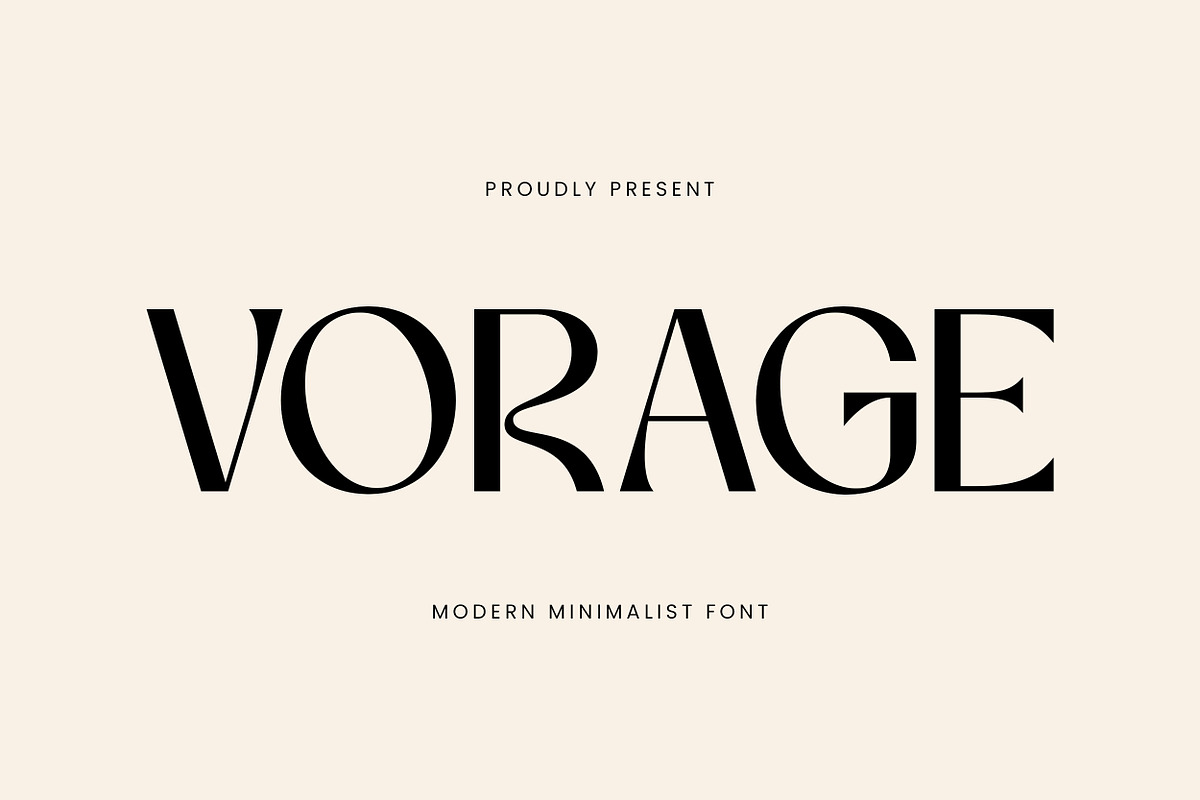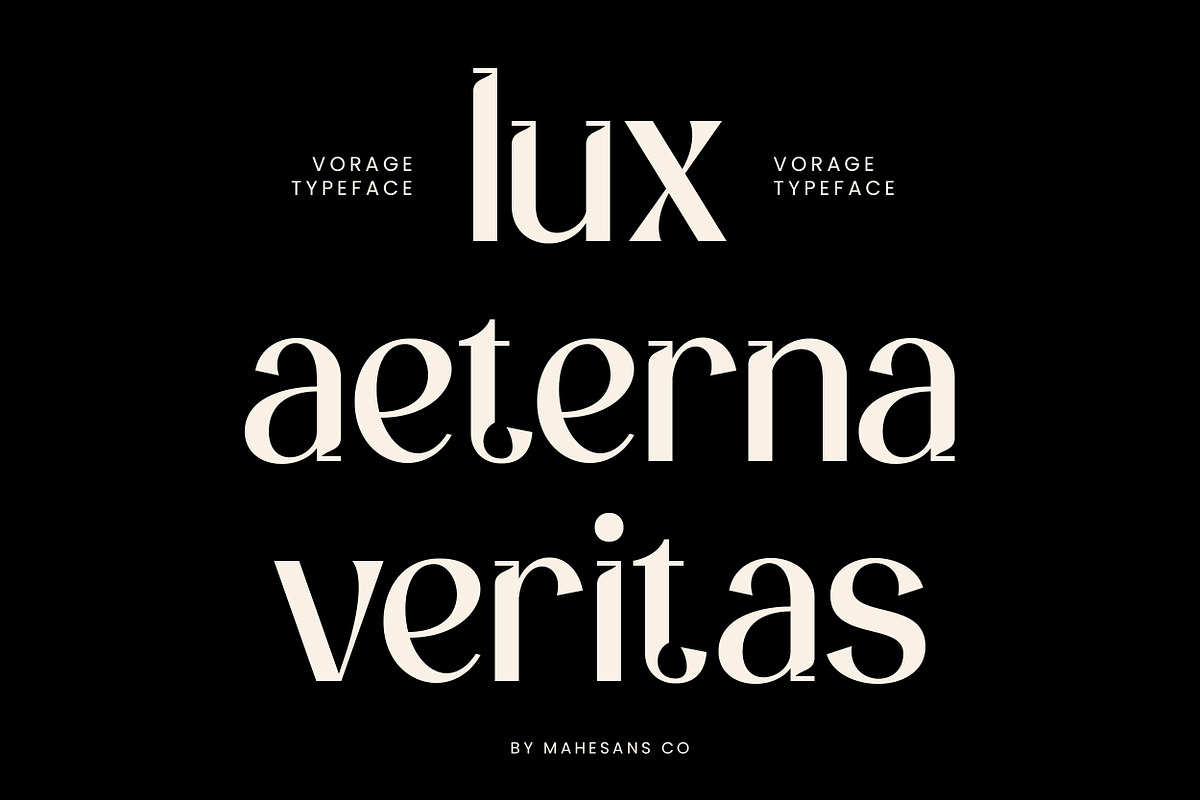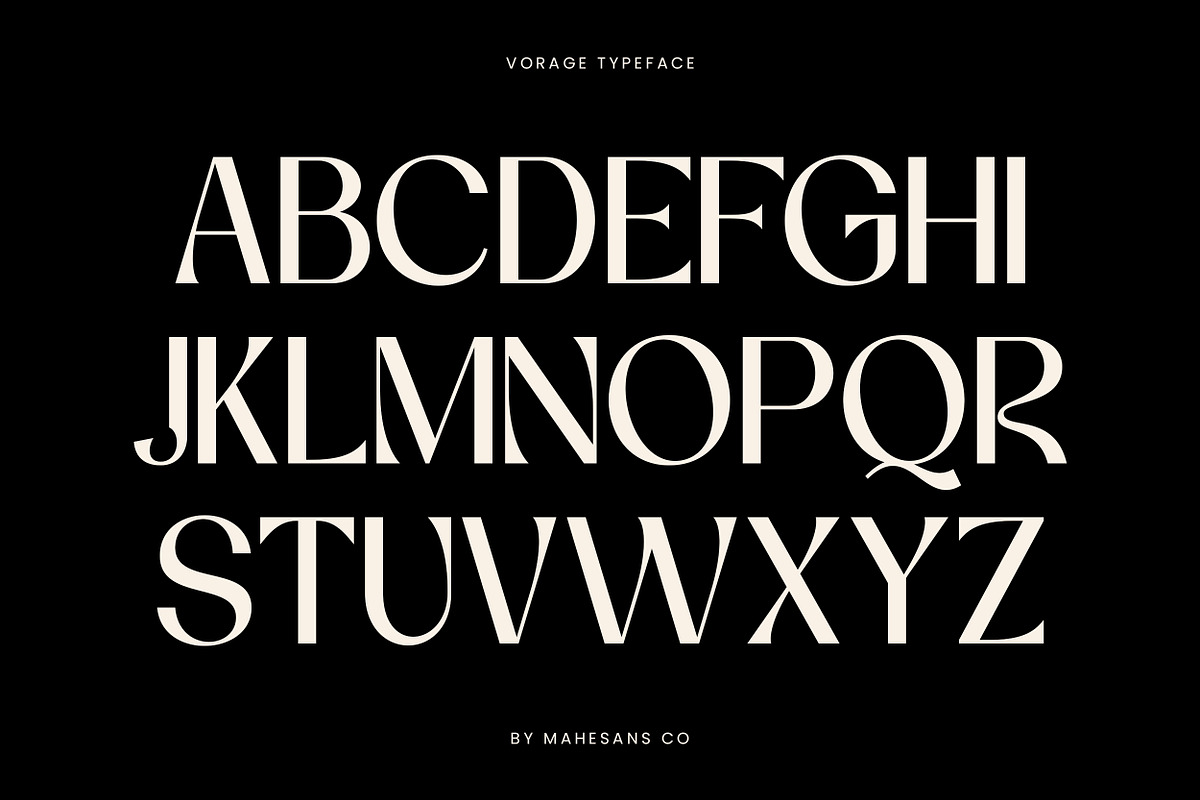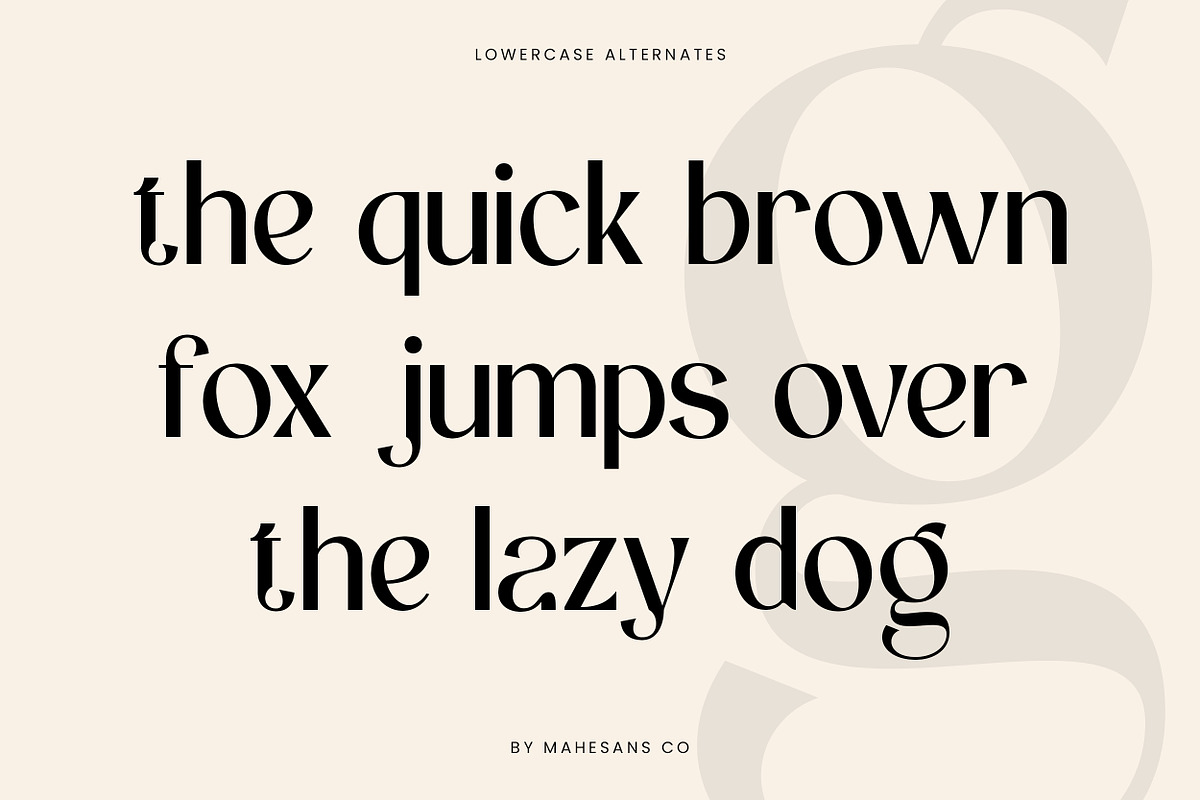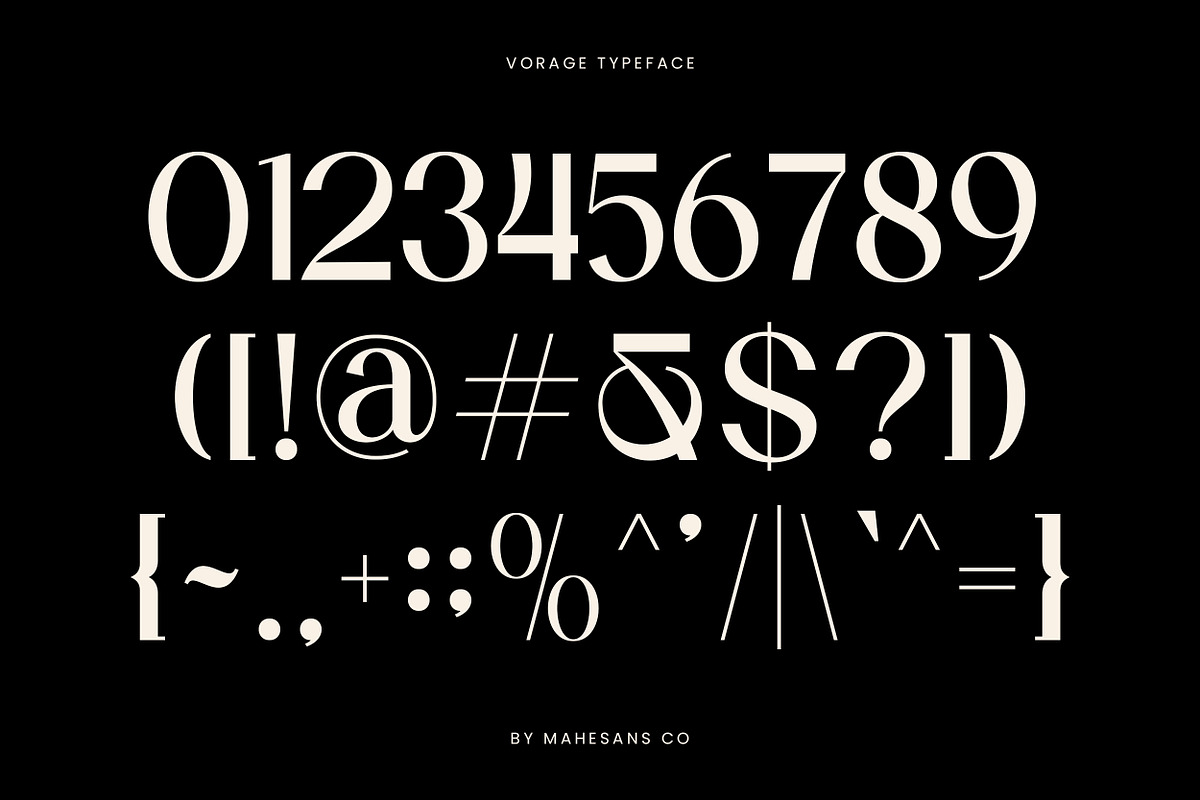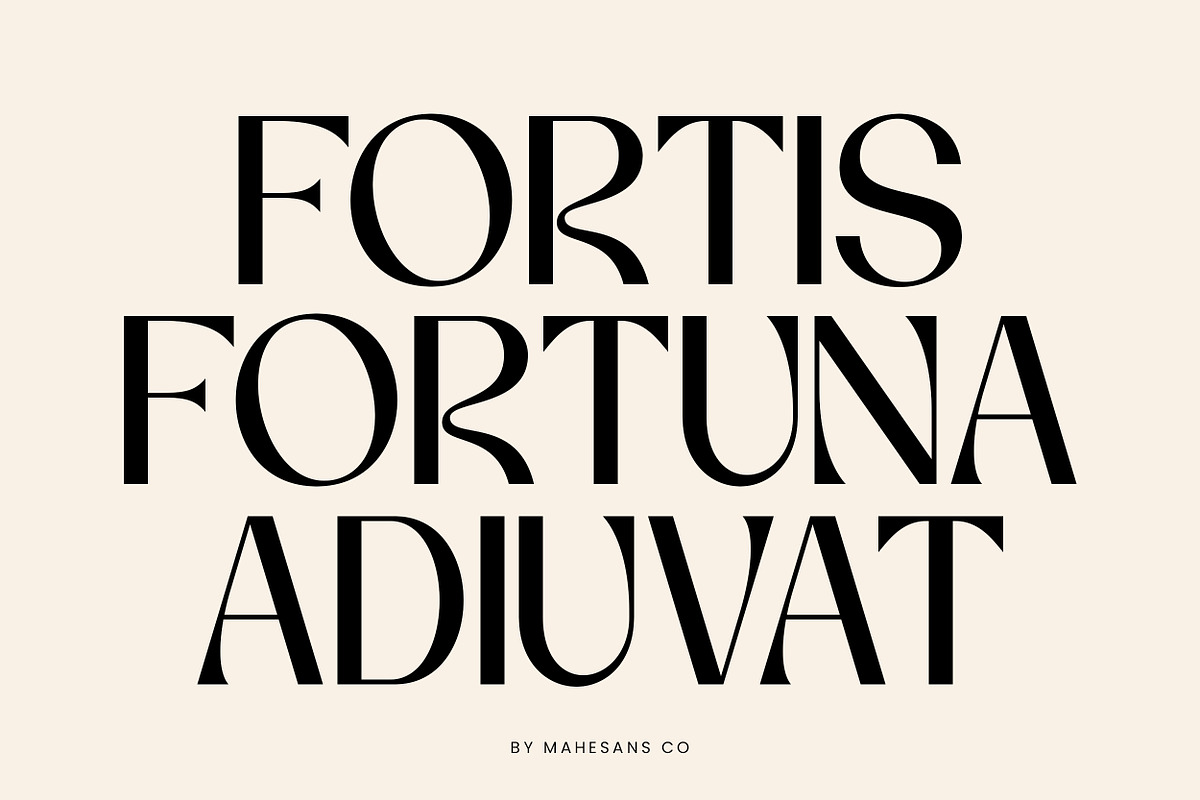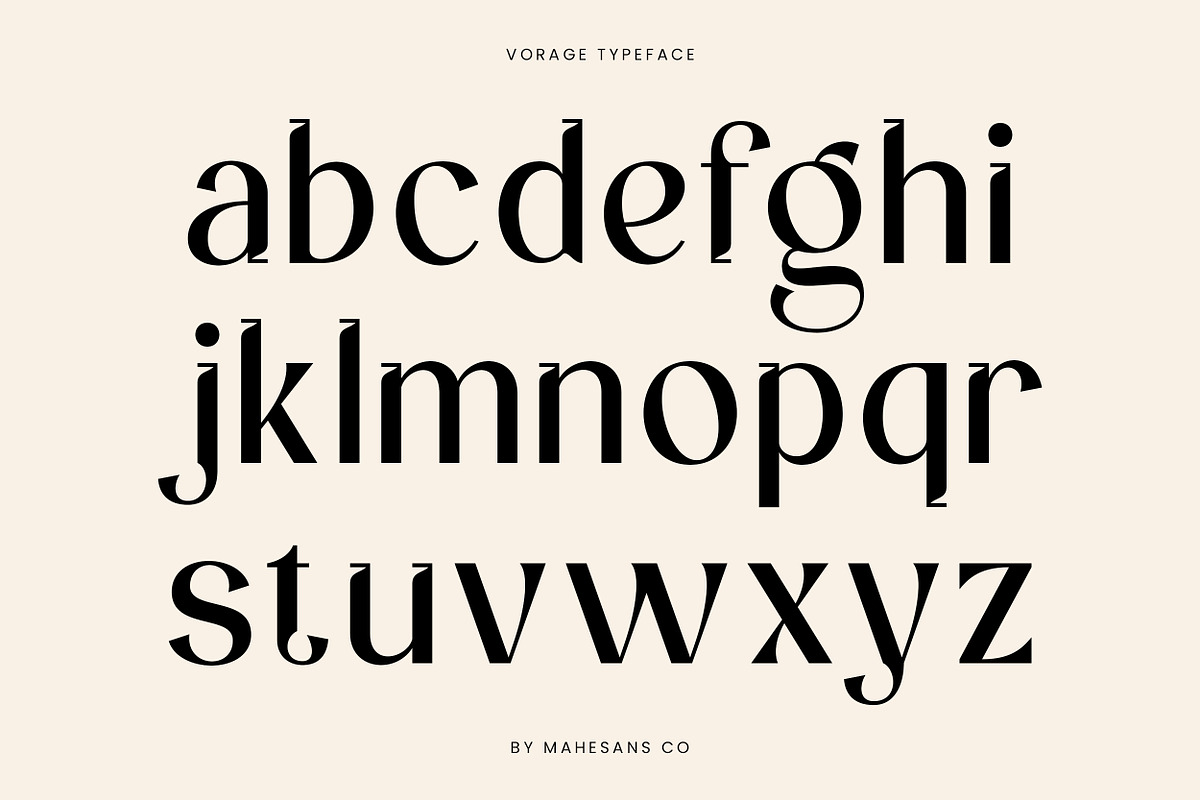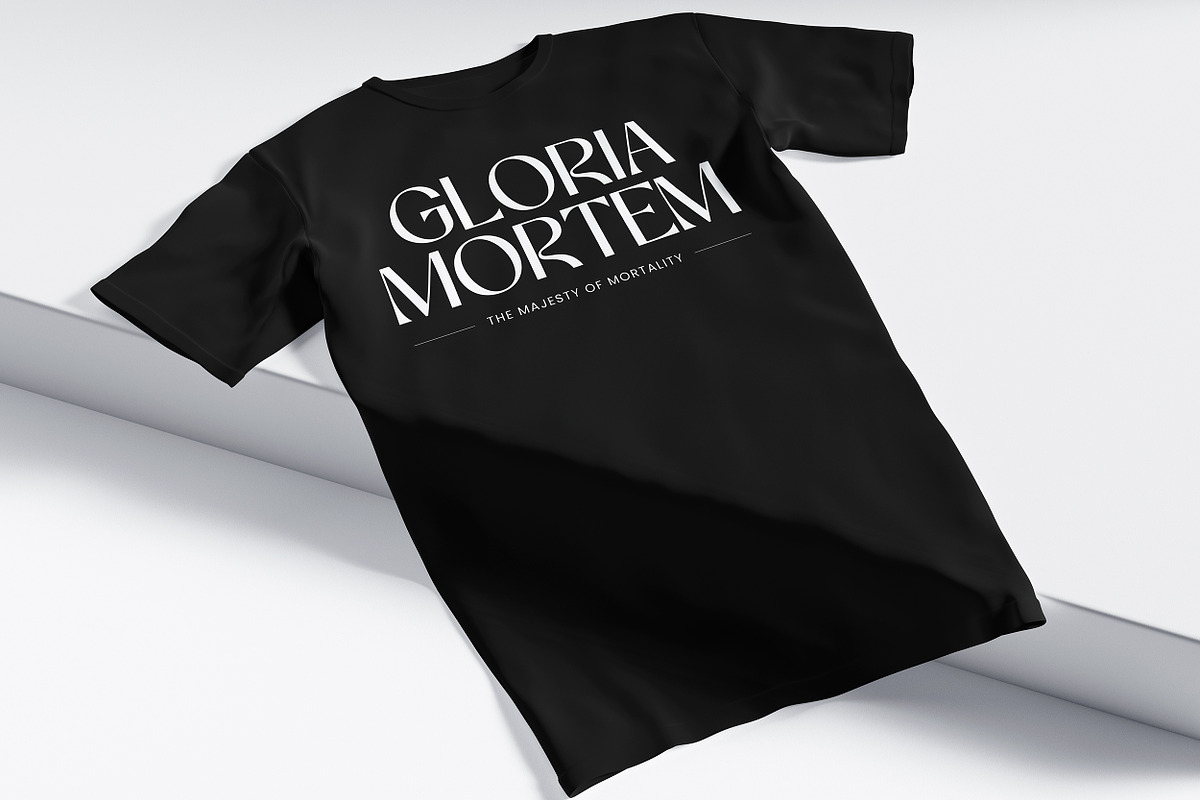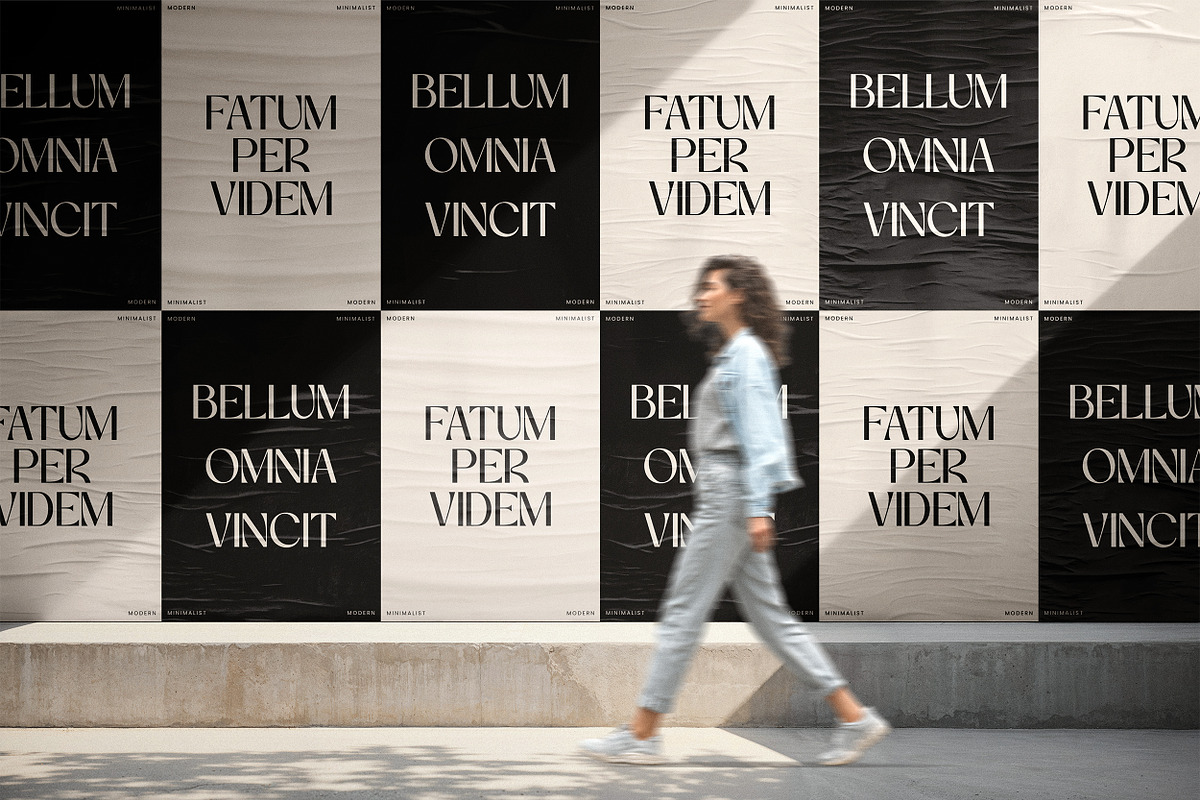
Vorage | Modern Minimalist Typeface
Vorage is a modern minimalist serif font with a unique balance of elegance and bold character. Designed with high contrast strokes, sharp details, and smooth curves, Vorage brings a luxurious and timeless aesthetic to any design project.
Perfect for branding, editorial layouts, packaging, logo design, social media graphics, and more—Vorage will instantly elevate your work with its sophisticated yet contemporary feel. Its stylish alternates and ligatures give you flexibility to create standout typography compositions.
Whether you’re working on fashion editorials, luxury branding, magazine headlines, or minimalist posters, Vorage is the perfect choice to create a lasting impression.